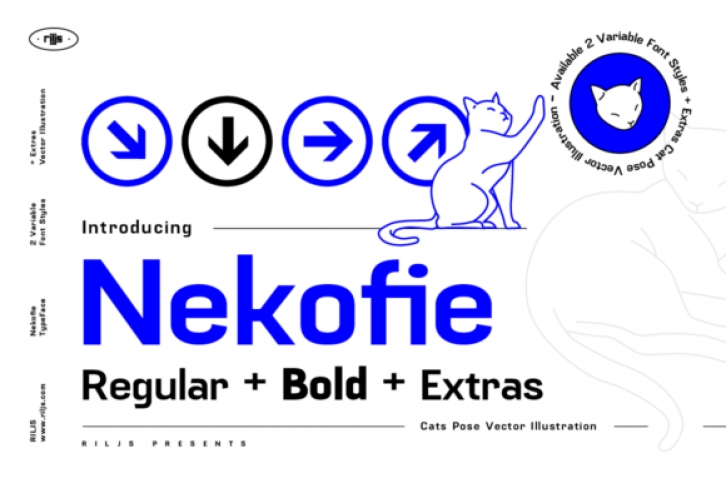
Nekofie a simple and neat sans serif font. It can easily be matched to an incredibly large set of projects, so add it to your creative ideas and notice how it makes them stand out!